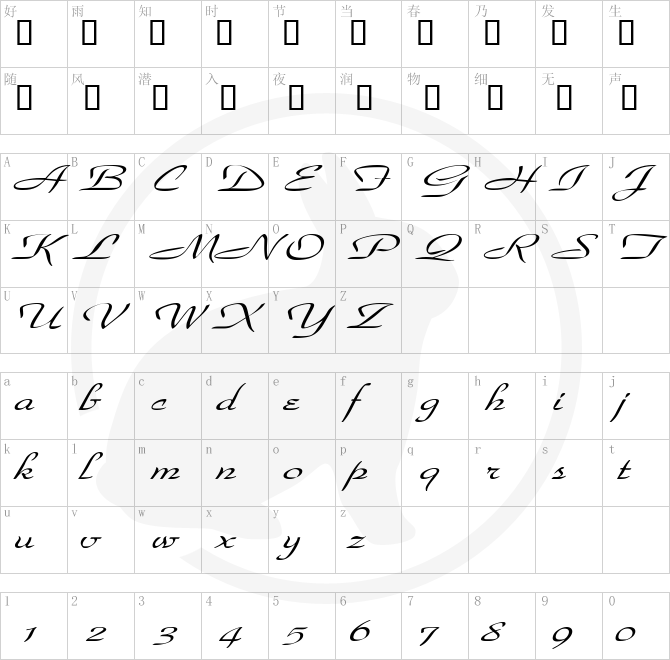
- Font Name:WaldorfScriptExtended
WaldorfScriptExtended-Italic.ttf is a very beautiful artistic font, WaldorfScriptExtended-Italic.ttf is widely used in the design and printing of various books and pictures,WaldorfScriptExtended-Italic.ttf has a strong visual impact,WaldorfScriptExtended-Italic.ttf is a commonly used font in newspapers, magazines and books, and is used in posters, e-commerce Poster design, store design, logo design, font design and other fields.WaldorfScriptExtended-Italic.